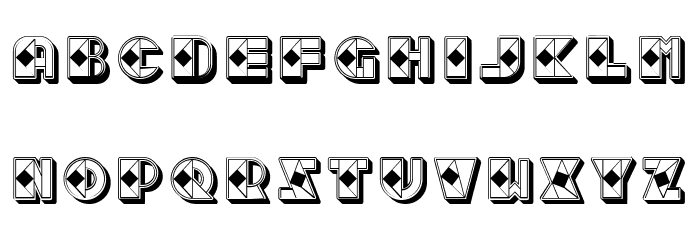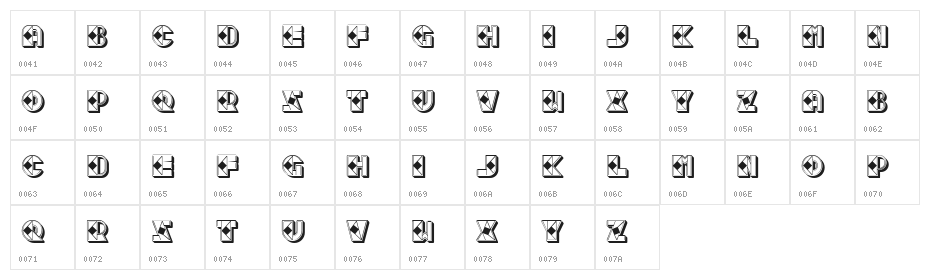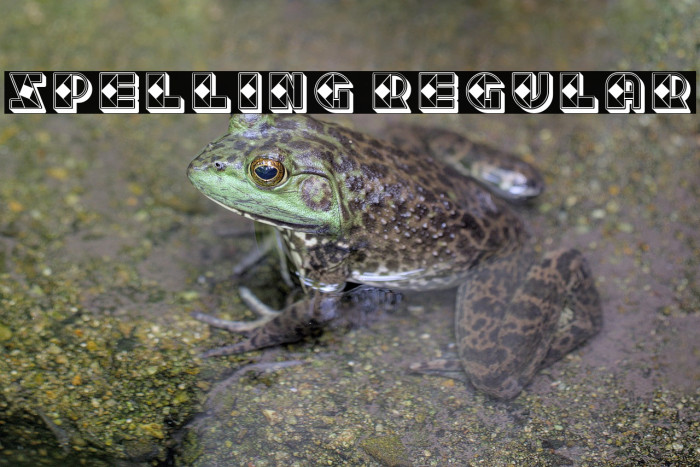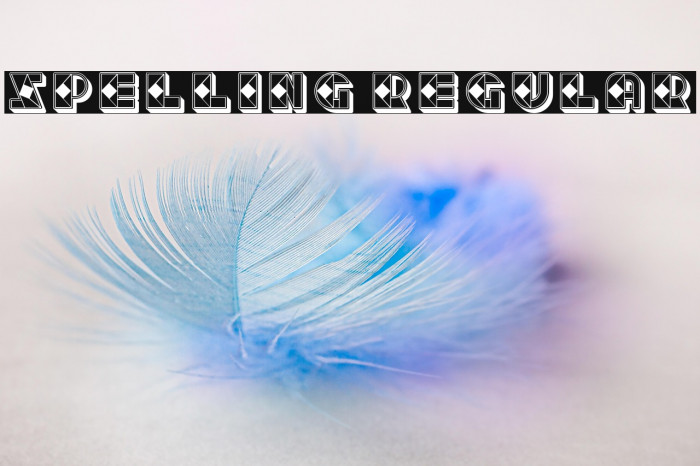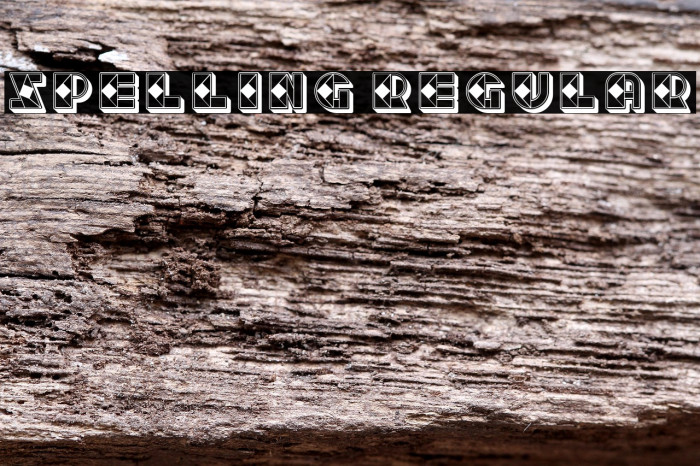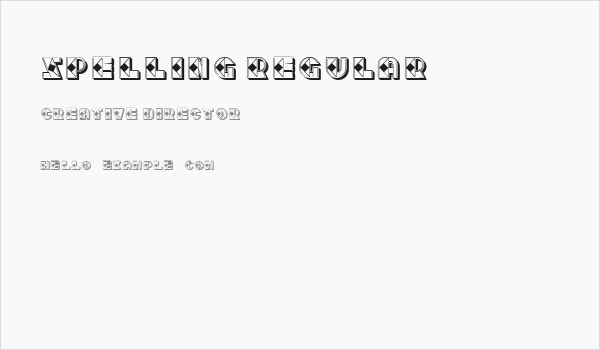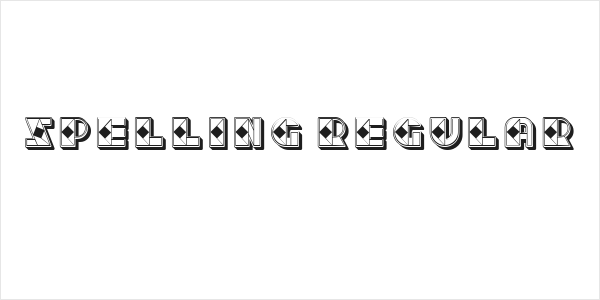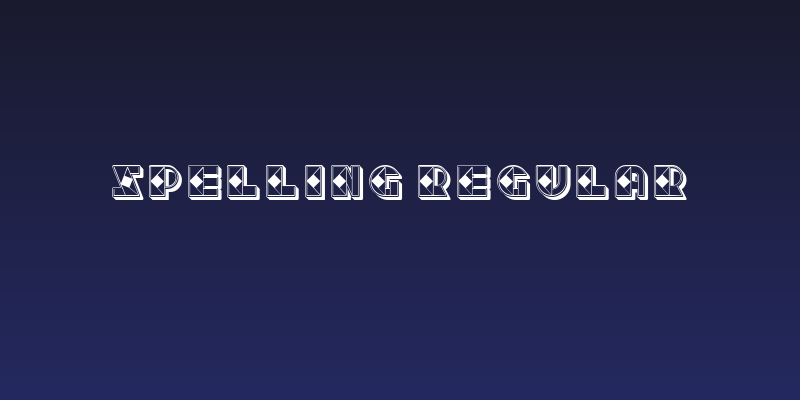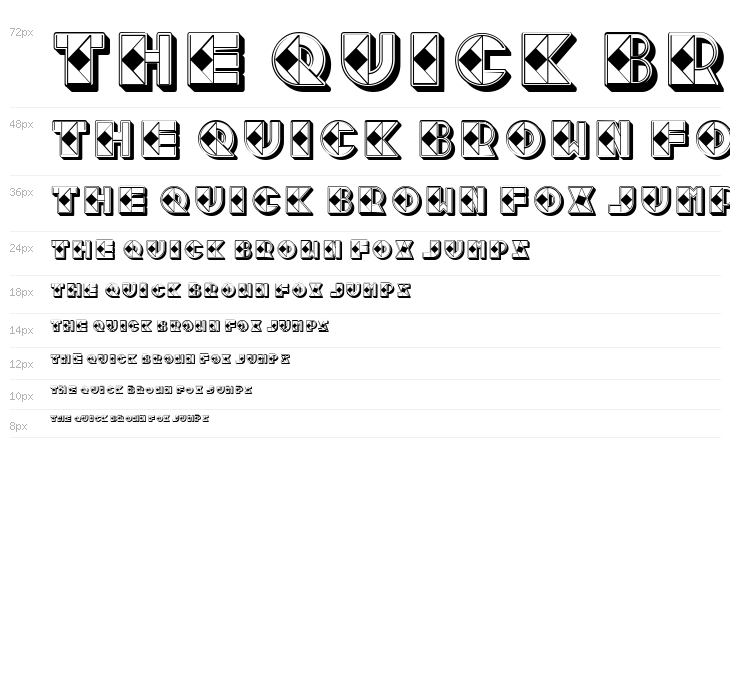
Spelling Regular Font
Spelling Regular Description
This font features a bold, geometric design with a three-dimensional effect. Each character is constructed using a combination of solid and outlined shapes, creating a striking visual impact. The letters are composed of angular lines and sharp edges, giving them a modern and futuristic appearance. The use of negative space within the characters adds depth and complexity to the overall design. This font is highly decorative, making it suitable for attention-grabbing headlines and creative projects. The consistent use of geometric patterns across all characters ensures a cohesive and uniform look.
| Proposed Projects | Ideal for posters, logos, branding, and any project requiring a modern and eye-catching typeface. |